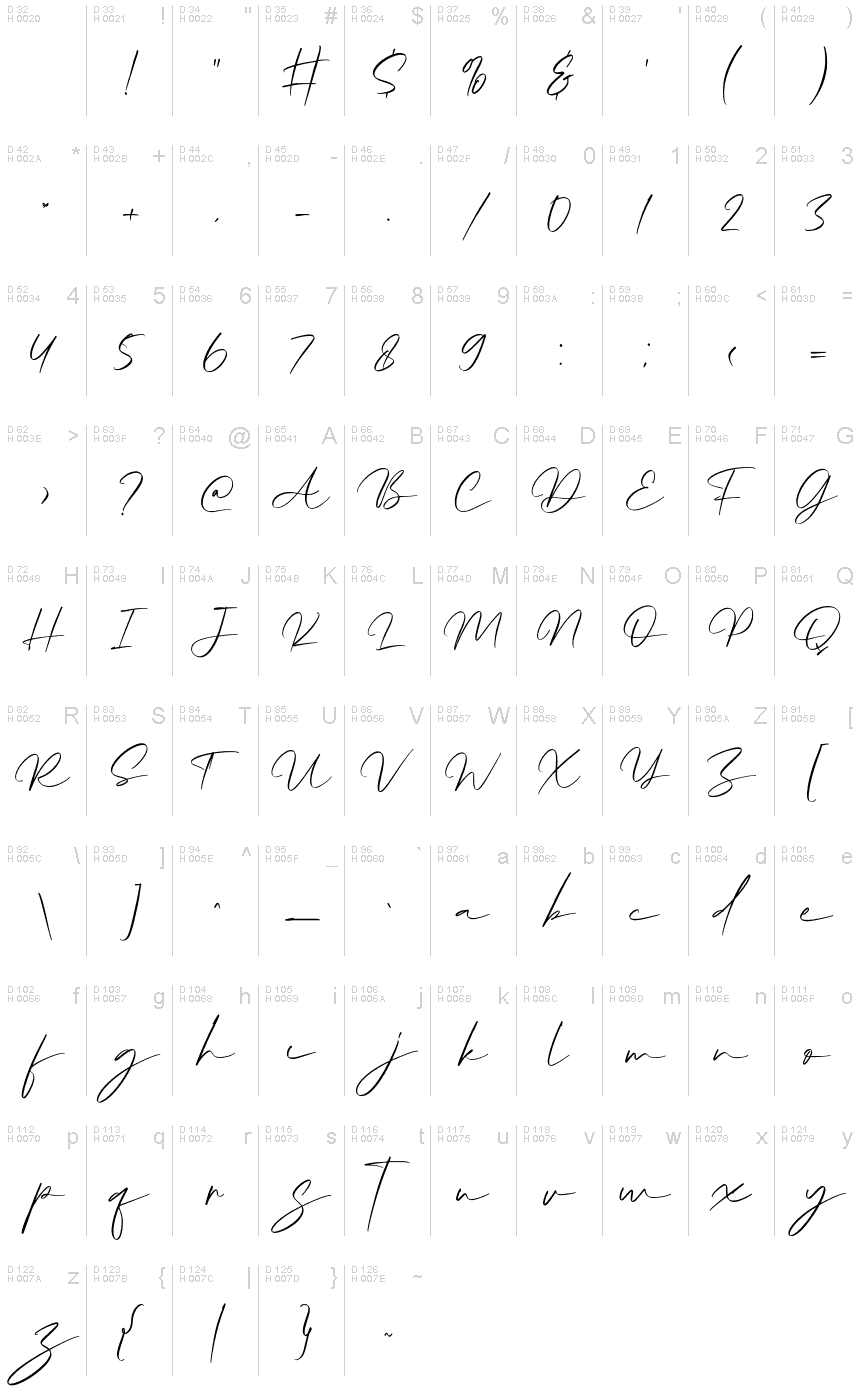
Nathaly Couple
Nathaly Couple, crafted by Hatf Type, is an exquisite extra-light handwritten font that exudes elegance and sophistication. With its signature style, this font is perfect for adding a touch of charm to wedding invitations, love letters, and romantic projects. Its delicate strokes create a sense of intimacy and personal connection. Nathaly Couple's graceful aesthetics make it suitable for branding luxury hotels, fashion boutiques, or high-end cosmetic lines seeking to captivate discerning clientele. Let this captivating typeface elevate your designs with its enchanting allure and evoke emotions of love and desire.